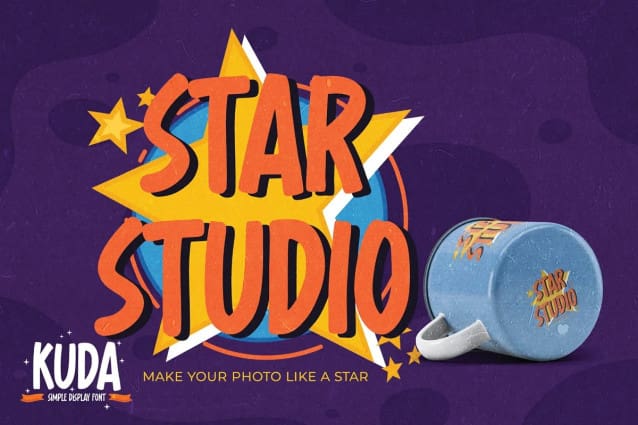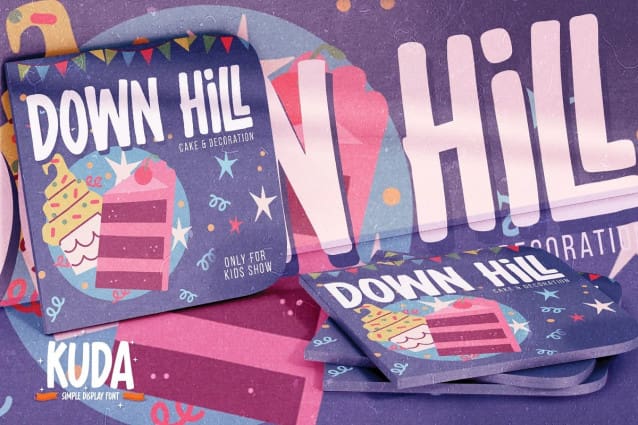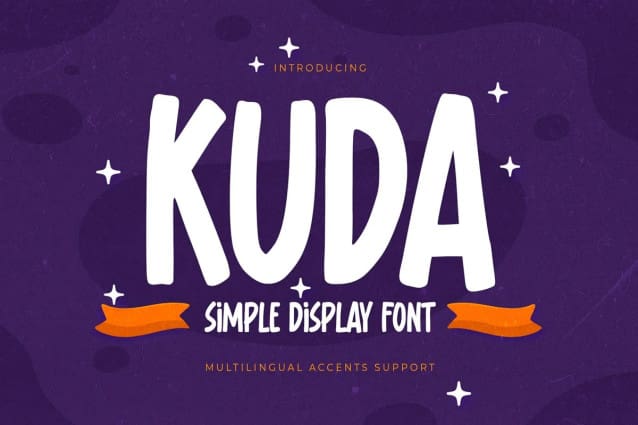
Kuda Display Font
Kuda Display Font is Simple Display Font with a natural feel. This handmade font will make your design has a beautiful natural touch for each details. It is perfect for any design project as Invitation,logo, book cover, craft or any design purposes.
Kuda Display Font is Inspired by Food Logo style and combination with Unique Craft style. that will fulfill your design needs for quotes,sporty theme, logotype, wordmark, etc. This has many opentype features and support multi language. This font is PUA encoded which means you can access all of the magical glyphs with ease! You can activate 10 Ligatures glyphs and 8 Alternates glyphs OpenType panel.